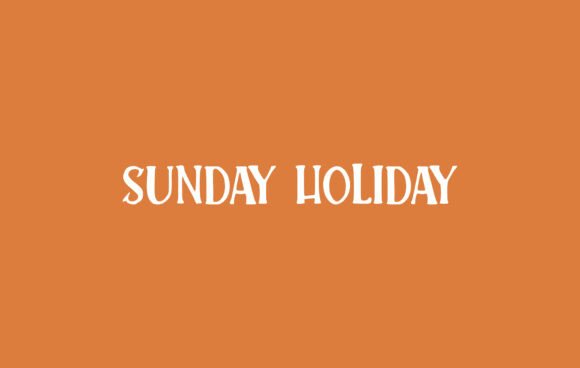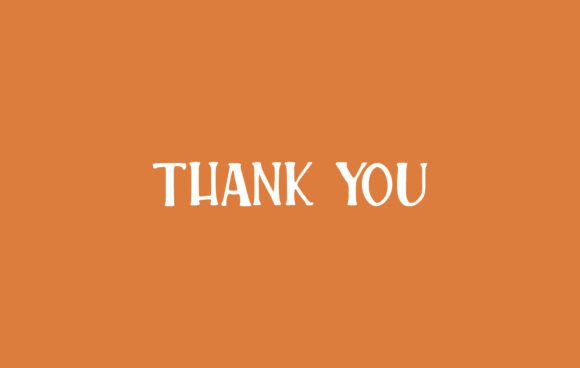
Carter Font: The Ultimate Handwritten Font for Creative Designs
In the world of typography, a good font can make all the difference in bringing your creative ideas to life. If you’re a designer, crafter, or simply someone who loves to dabble in DIY projects, you’re likely always on the lookout for the perfect font to add a personal touch to your work. That’s where Carter Font comes in – an authentic handwritten font with a romantic touch that’s sure to become your new favorite.
What Makes Carter Font So Special?
Carter Font is expertly designed to bring a touch of elegance and sophistication to any design project. Its unique, handwritten style has a way of adding a personal and emotional connection to your work, making it perfect for a wide range of applications. Whether you’re looking to create stunning magazine headlines, eye-catching social media graphics, or beautiful wedding invitations, Carter Font is the perfect choice.
Key Features of Carter Font
- Authentic Handwritten Style: Carter Font boasts an authentic handwritten style that’s both elegant and approachable.
- Romantic Touch: The font’s romantic touch adds a touch of whimsy and charm to any design project.
- Legible and Versatile: Carter Font is highly legible and looks great as both a title and body text, making it perfect for a wide range of design applications.
Carter Font’s versatility is one of its standout features. Its unique style and legibility make it perfect for a wide range of design projects, including:
- Magazine Headlines: Add a touch of elegance and sophistication to your magazine headlines with Carter Font.
- Social Media Graphics: Create eye-catching social media graphics that stand out from the crowd with Carter Font.
- Branding: Use Carter Font to create a consistent and recognizable brand identity that sets you apart from the competition.
- Wedding Invitations: Add a touch of romance and whimsy to your wedding invitations with Carter Font.
- Cards and Stationery: Create beautiful cards and stationery that are sure to impress with Carter Font.
Why Choose Carter Font?
With so many fonts to choose from, why should you choose Carter Font? Here are just a few reasons why Carter Font stands out from the crowd:
- Unique and Authentic Style: Carter Font’s unique and authentic handwritten style sets it apart from more generic fonts.
- Highly Legible: Carter Font is highly legible, making it perfect for both title and body text.
- Versatile: Carter Font is versatile and can be used for a wide range of design applications.
- Elegant and Sophisticated: Carter Font adds a touch of elegance and sophistication to any design project.